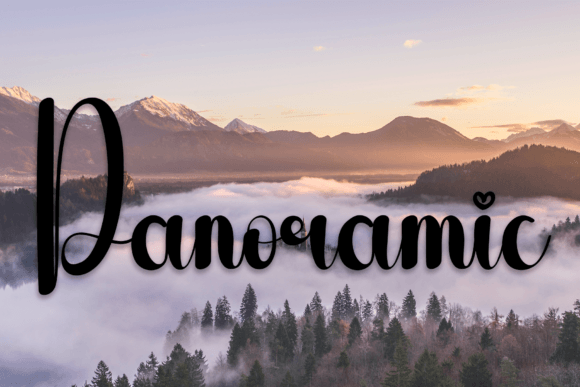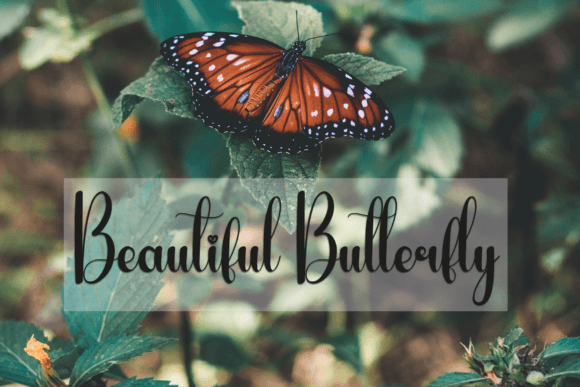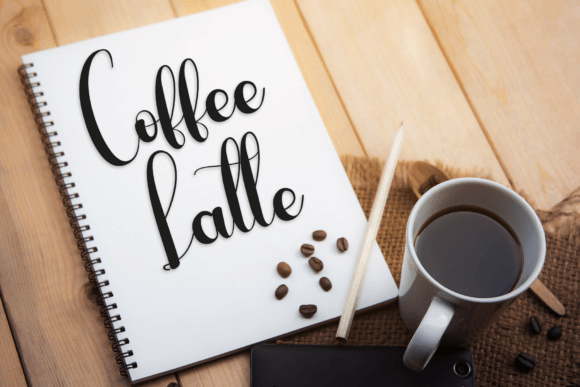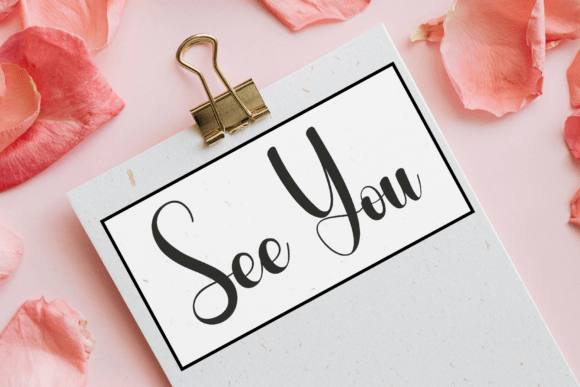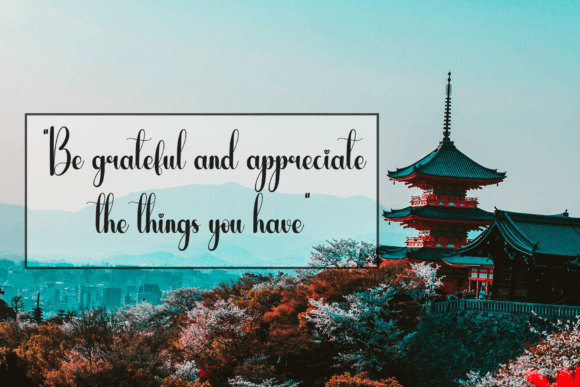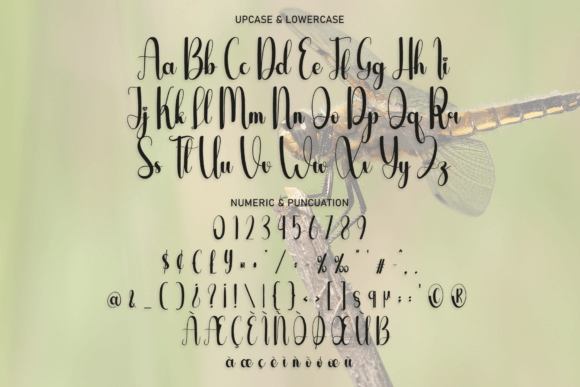
Introducing Dragonfly Font: The Sweet and Friendly Handwritten Font for Your Creative Projects
Are you a designer or crafter looking for a font that can add a touch of whimsy and fun to your creative projects? Look no further than the Dragonfly Font! This sweet and friendly handwritten font is perfect for writing wedding invitations, cards, or any other design that might need a playful and elegant touch.
What Makes Dragonfly Font Special?
Dragonfly Font is a fresh and neat handwritten font that is ideal for a variety of design projects. Its sweet and friendly feel makes it perfect for creating wedding invitations, birthday cards, and other celebratory designs. The font’s clean and elegant lines ensure that it remains legible and easy to read, even at smaller sizes.
Key Features of Dragonfly Font
- Sweet and Friendly Feel: Dragonfly Font has a playful and approachable feel that makes it perfect for designs that require a personal touch.
- Fresh and Neat: The font’s clean lines and elegant curves ensure that it remains legible and visually appealing.
- Handwritten Style: Dragonfly Font has a beautiful handwritten style that adds a touch of personality to any design.
- Versatile: This font is perfect for a variety of design projects, including wedding invitations, cards, posters, and more.
Why Choose Dragonfly Font?
There are many fonts available that can add a touch of elegance and sophistication to your designs. However, Dragonfly Font stands out from the crowd due to its unique combination of sweetness, friendliness, and elegance. Here are a few reasons why you should choose Dragonfly Font for your next project:
- Easy to Read: Dragonfly Font is designed to be easy to read, even at smaller sizes. This makes it perfect for designs that require a lot of text, such as wedding invitations and cards.
- Highly Versatile: This font can be used for a wide range of design projects, from formal wedding invitations to playful birthday cards.
- Unique and Eye-Catching: Dragonfly Font has a unique and eye-catching style that will make your designs stand out from the crowd.
How to Use Dragonfly Font in Your Designs
Dragonfly Font is easy to use and can be incorporated into a variety of design projects. Here are a few ideas to get you started:
- Wedding Invitations: Use Dragonfly Font to create beautiful and elegant wedding invitations that will set the tone for your special day.
- Birthday Cards: Add a touch of whimsy and fun to your birthday cards with Dragonfly Font.
- Posters and Flyers: Use Dragonfly Font to create eye-catching posters and flyers that will grab the attention of your audience.
Tips and Tricks for Getting the Most Out of Dragonfly Font
Here are a few tips and tricks to help you get the most out of Dragonfly Font:
- Experiment with Different Sizes: Dragonfly Font looks great at a variety of sizes, so don’t be afraid to experiment and find the perfect size for your design.
- Pair with Other Fonts: Dragonfly Font pairs well with a variety of other fonts, so try pairing it with a bold font for headings and a clean font for body text.
- Add a Personal Touch: Use Dragonfly Font to add a personal touch to your designs, such as a handwritten note or a custom illustration.
Dragonfly Font is a sweet and friendly handwritten font that is perfect for adding a touch of whimsy and fun to your designs. With its fresh and neat lines, elegant curves, and highly versatile style, this font is ideal for a wide range of design projects. Whether you’re a designer or crafter, Dragonfly Font is sure to become a favorite in your collection.